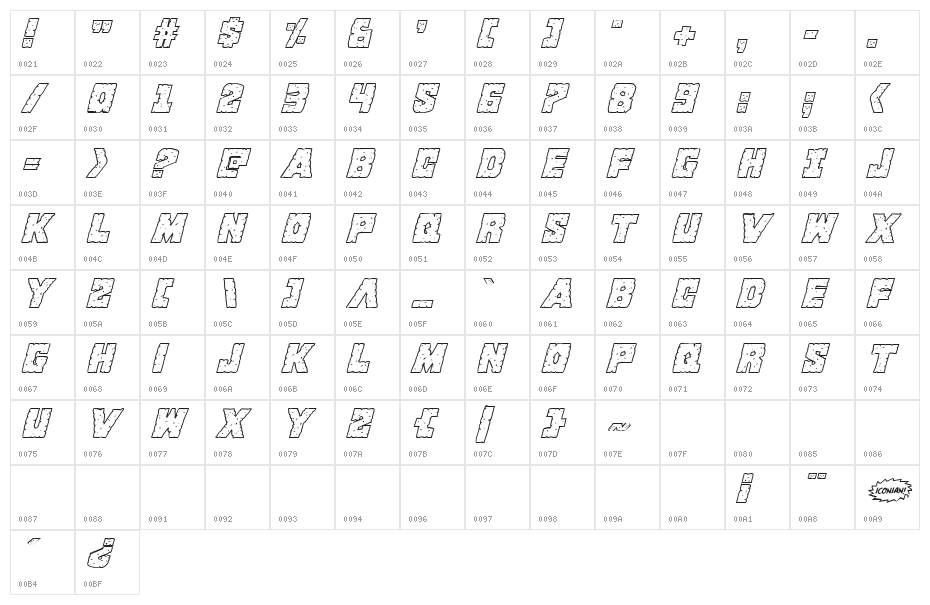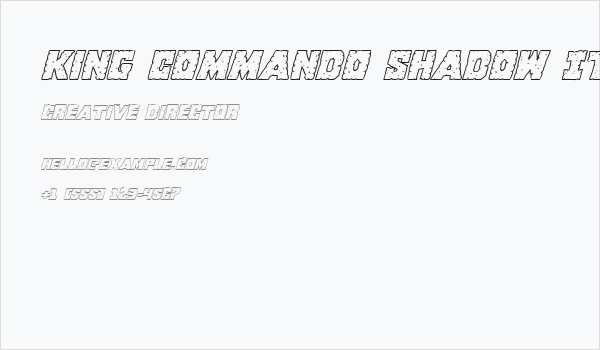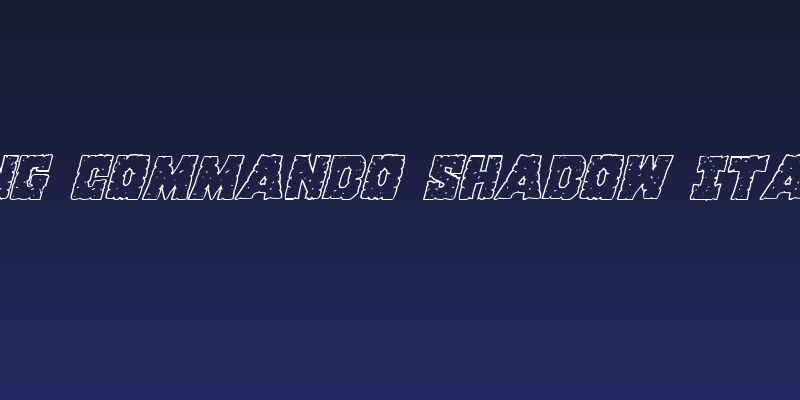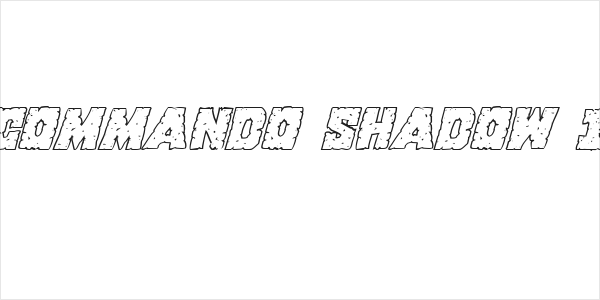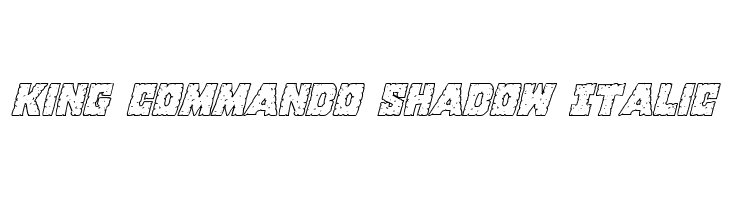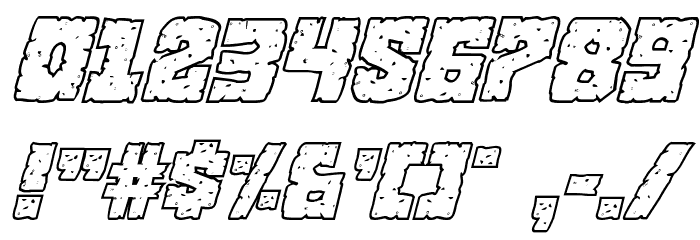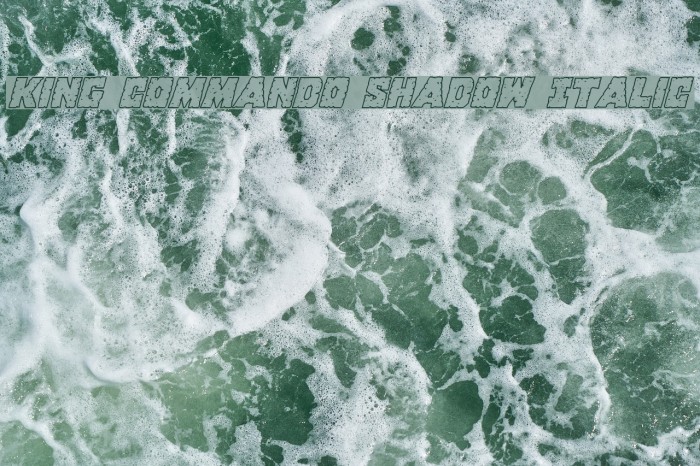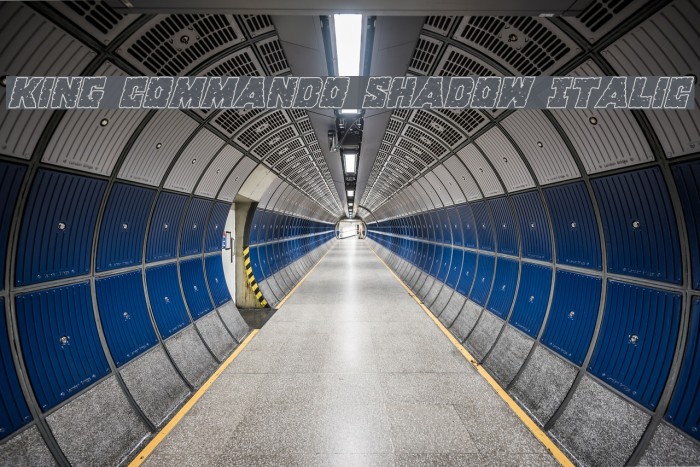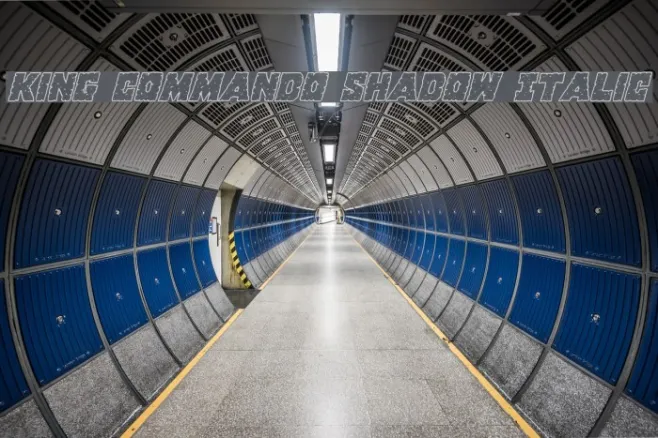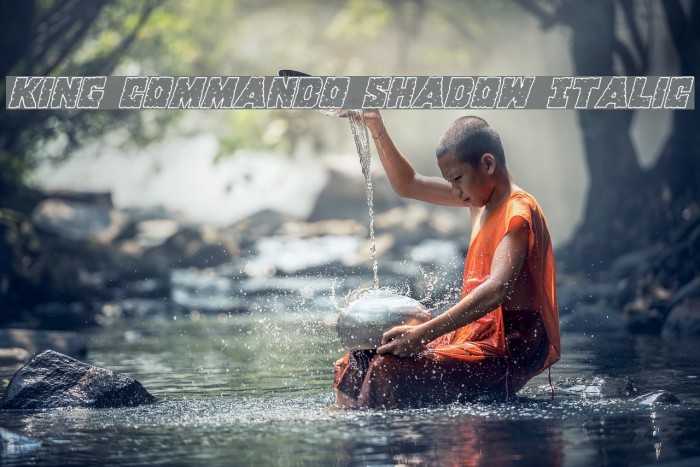
King Commando Shadow Italic Font
King Commando Shadow Italic Description
This font features a bold and rugged design with a shadow effect that gives it a three-dimensional appearance. The characters are uppercase and lowercase, with a consistent blocky structure that conveys strength and impact. The italic slant adds a dynamic feel, enhancing its boldness. The texture within each letter resembles a rough, stone-like surface, adding a unique, gritty aesthetic. This font is ideal for projects that require a strong, commanding presence, such as military-themed designs or action-oriented branding. Its decorative style makes it suitable for headlines and titles where attention-grabbing visuals are essential.
| Proposed Projects | Ideal for military-themed designs, action-oriented branding, video game titles, and impactful posters. |